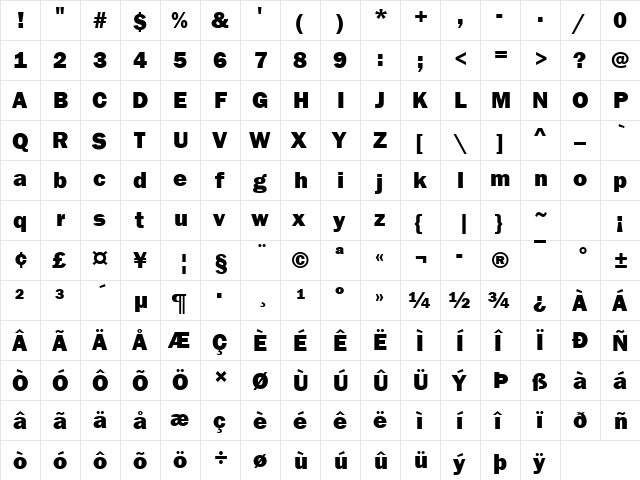
Franklin Gothic Heavy Regular
Design Context for Franklin Gothic Heavy Typeface
Franklin Gothic Heavy takes a clean, functional approach — its unadorned letterforms prioritise legibility and work reliably across screen and print environments.
Font Pairing: Works well alongside a characterful serif or display font that can carry the expressive load while Franklin Gothic Heavy handles the functional copy.
Pro Tip: Pair Franklin Gothic Heavy with a display or serif font for headlines — its neutral character makes it an excellent supporting player in complex typographic systems.